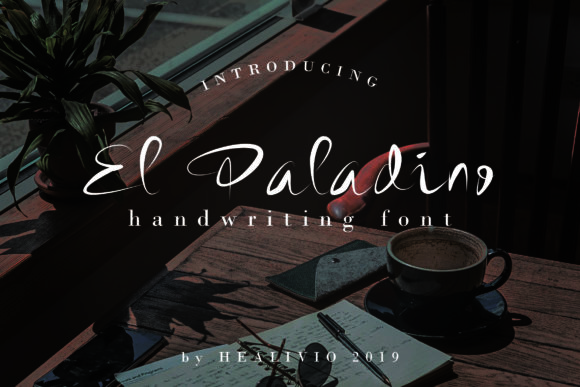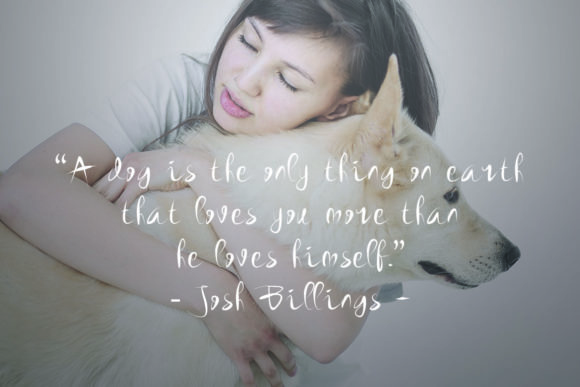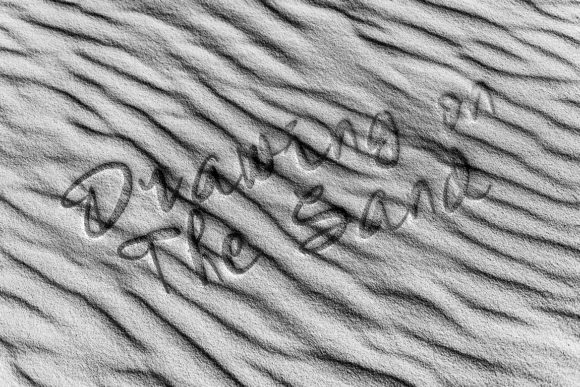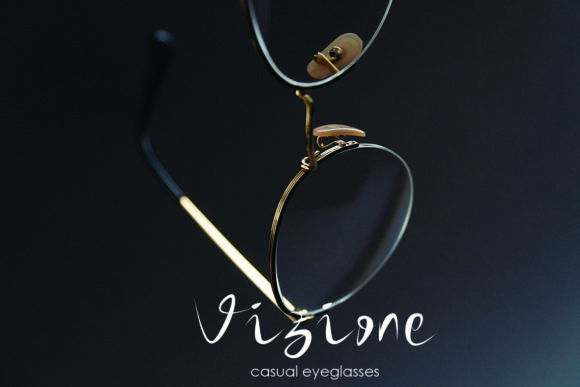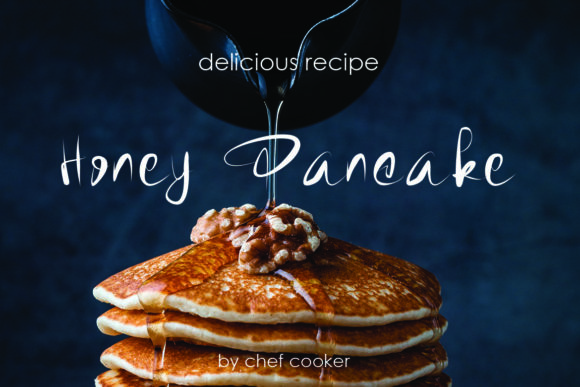
El Padalino Font
About El Padalino Font
El Padalino is an authentic, bold and contemporary handwritten font with a unique charm. It will inspire any new design project with its one-of-a-kind style.